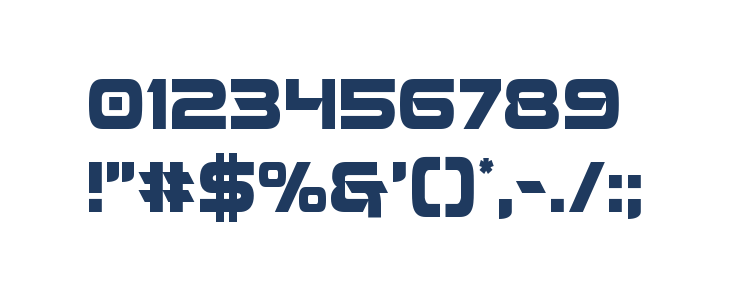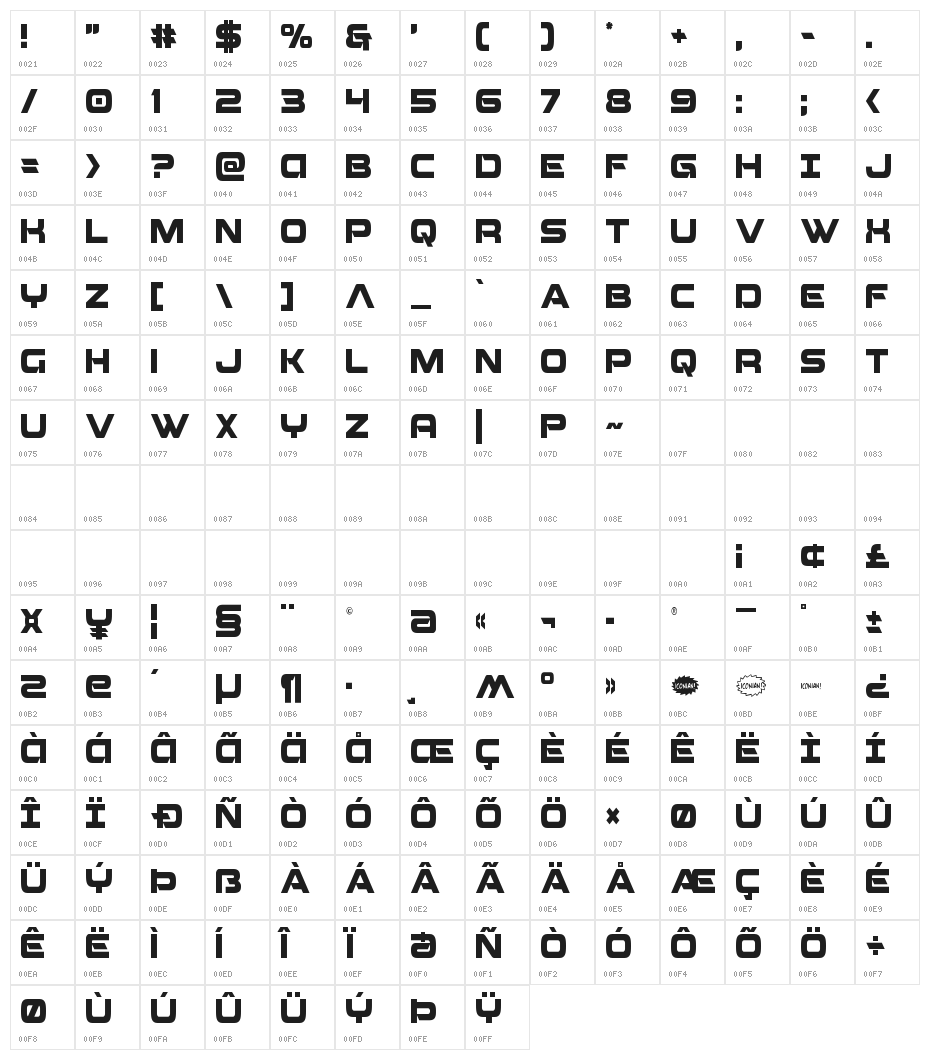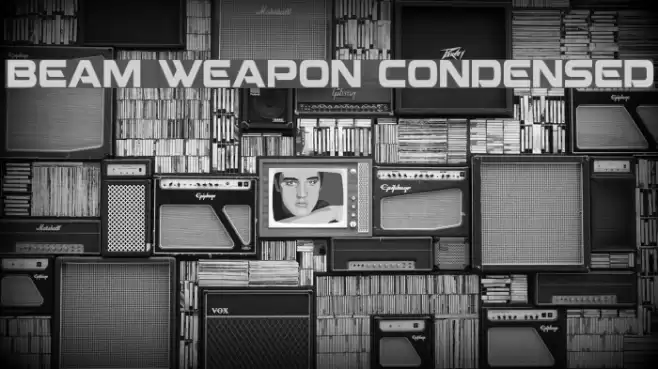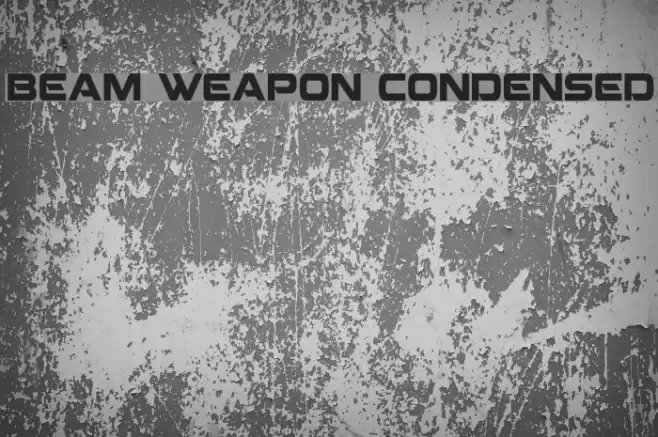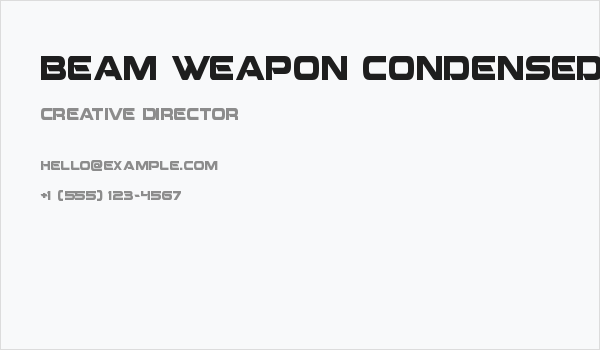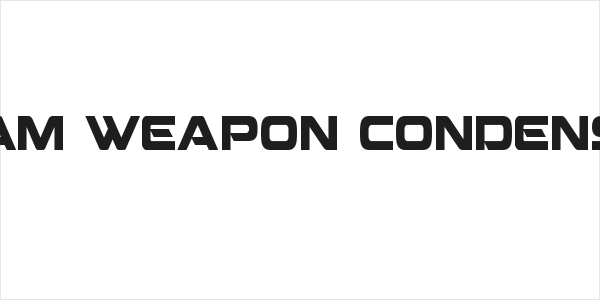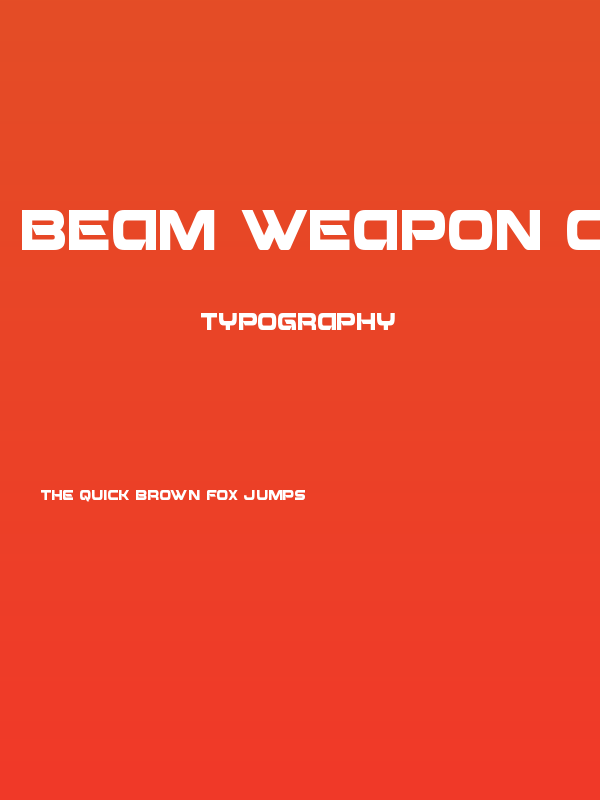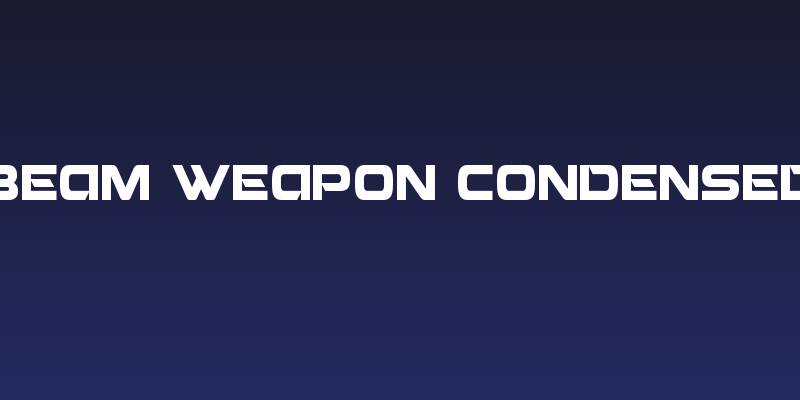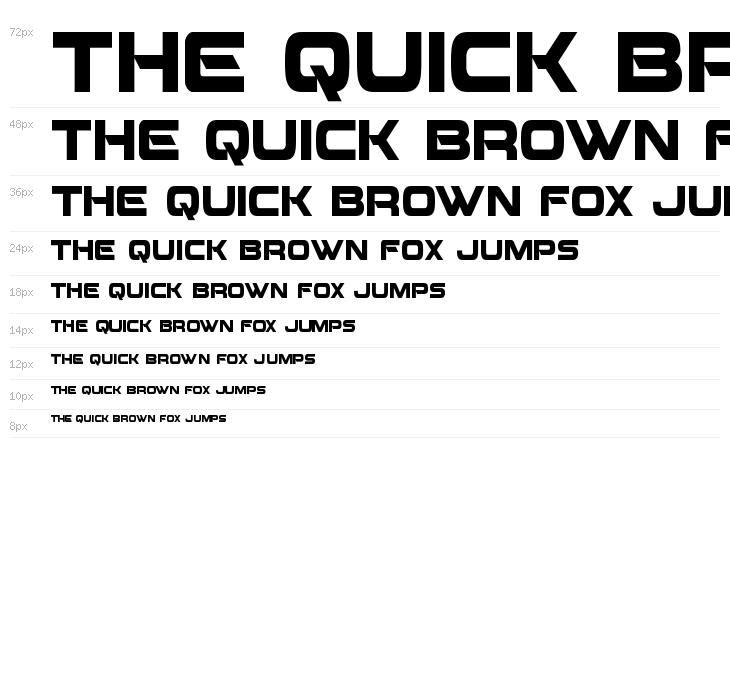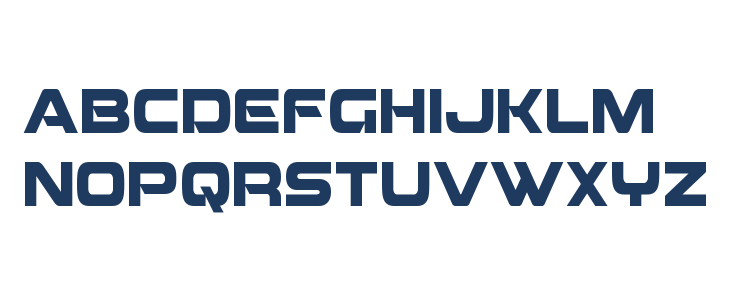
Beam Weapon Condensed Font
Beam Weapon Condensed Description
This font features a futuristic and bold design, characterized by its geometric shapes and sharp angles. The letters are condensed, giving a compact and efficient appearance, suitable for modern and tech-oriented themes. The uppercase and lowercase letters maintain a consistent style, with a uniform stroke width that enhances readability. The numerals and special characters follow the same design principles, ensuring a cohesive look across all elements. This font's distinct style makes it ideal for projects that require a strong visual impact.
Proposed ProjectsIdeal for technology branding, sci-fi movie posters, video game titles, and modern logos.